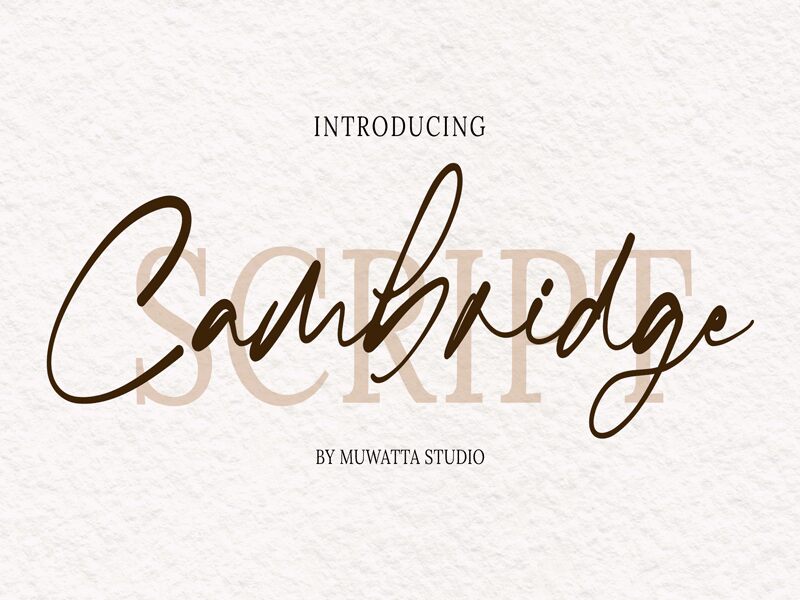
Cambridge is a stunning handwritten font designed by Muwatta Studio. Its light weight makes it perfect for elegant and feminine projects such as wedding invitations, blog headers, and branding materials for beauty or fashion brands. This font is versatile enough to be used for anything from social media graphics to product packaging. Its delicate strokes and charming imperfections make it both unique and approachable, adding a personal touch to any project. With Cambridge, you can effortlessly elevate your designs with a touch of sophistication and grace.
Cambrige